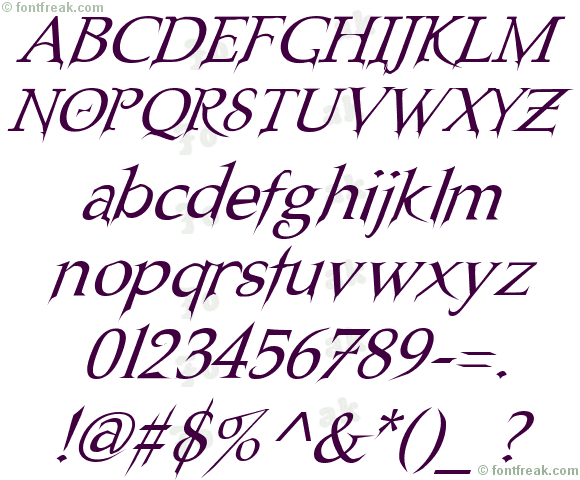
About Nosferatu
The Nosferatu font by Kiwi Media is a striking display typeface that captures the essence of gothic and horror themes. Released in 1995 and designed by Eric Oehler, this shareware font features an oblique style that gives it a distinctive, eerie aesthetic. The visual characteristics of Nosferatu include sharp, pointed serifs and a high contrast between thick and thin strokes, which adds a dramatic flair to its overall appearance. The spacing is tight, enhancing its bold presence while the decorative elements evoke a sense of mystique, making it ideal for projects that aim to convey an atmosphere of suspense or intrigue.
Due to its unique design, the Nosferatu font is well-suited for a variety of specific use cases. It's perfect for movie posters, particularly those in the horror genre, where it can evoke the chilling essence of classic vampire tales. Additionally, it can be effectively used in book covers, especially for gothic novels and thrillers. Restaurant menus in themed establishments, such as vampire-themed eateries, could also benefit from this font, providing an immersive dining experience. Furthermore, graphic designers can utilize Nosferatu in Halloween marketing materials to attract attention and create a thematic connection with potential customers.
The target audience for the Nosferatu font includes graphic designers, small business owners, and content creators looking for a distinctive typeface that stands out in their projects. Its unique style can enhance branding and promotional materials, making a memorable impression.